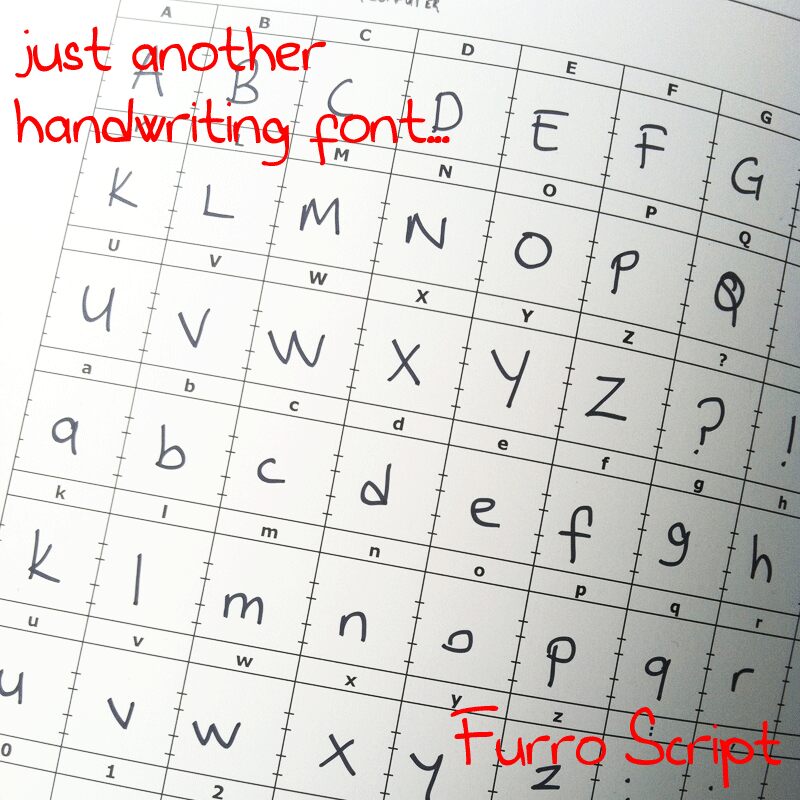
Furro Script is a free handwritten font created by Hi hi hi there! Tall, loosely drawn letters combine uneven shapes with shifting stroke widths, suggesting quick writing made with a broad marker.
Casual personal expression is its clearest theme, making it useful for diary-style publishing, youth event posters, and playful merchandise. The lively forms can also give informal packaging a homemade label effect. This font is most convincing when a project needs lettering that looks directly written rather than carefully typeset.
Furro Script Normal is a font by Hi hi hi there!, designed by Furkan Akbayrak in 2012.